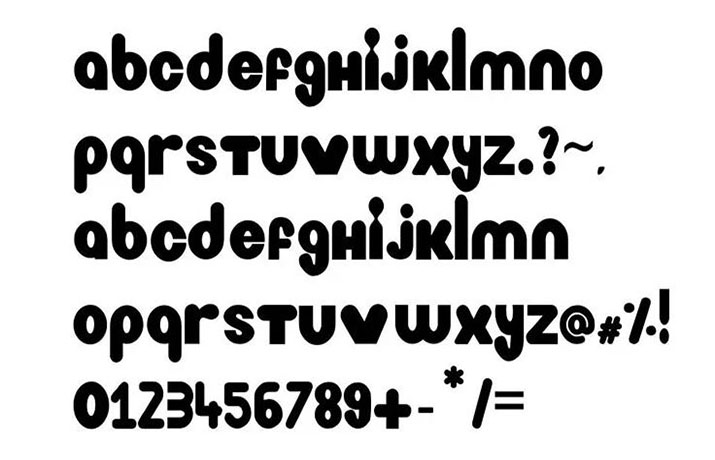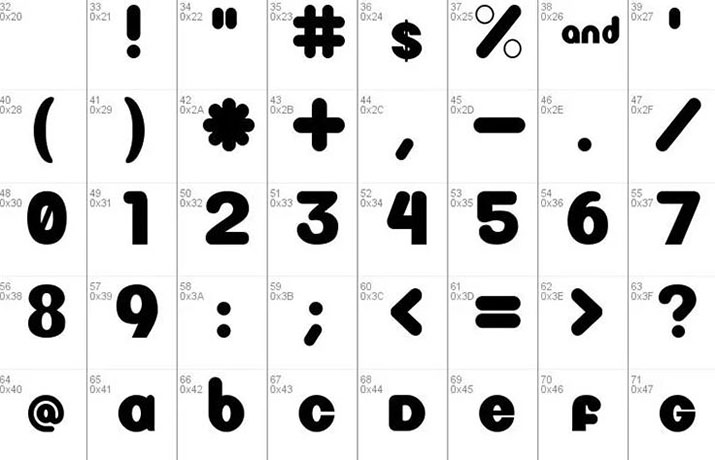
Nickelodeon Font is a logo typeface basically, Nickelodeon is an American pay television channel owned by Paramount Global through Paramount Media Networks’ subdivision, Nickelodeon Group.
“A font called Nickelodeon TV was created by Juan-e-b to mimic the letters of this logotype. This font comes in a single style that contains 236 glyphs and supports 64 multilingual languages.”
| Font Designer: | Juan-e-b |
Nickelodeon Font is a logo typeface basically, Nickelodeon is an American pay television channel owned by Paramount Global through Paramount Media Networks’ subdivision, Nickelodeon Group.
A font called Nickelodeon TV was created by Juan-e-b to mimic the letters of this logotype.